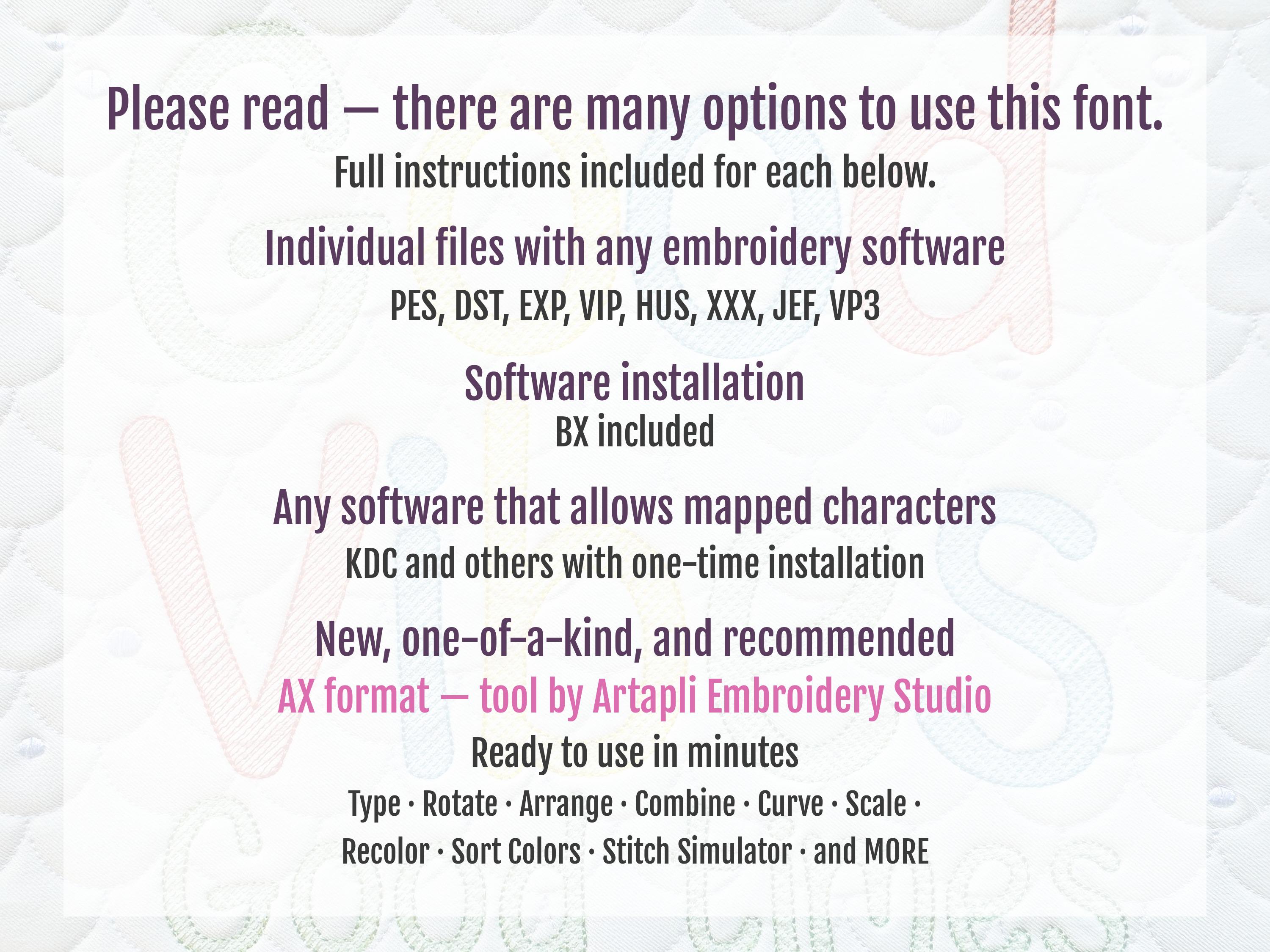
Cute Light fill Stitch Font alphabet monogram transparent letters numbers machine embroidery designs multiple sizes from 1 up to 4 inch, BX included
Uppercase and lowercase letters Aa-Zz, numbers 0-9, and special marks & . , -
The font is transparent, the background fabric looks through. Stunning effect!